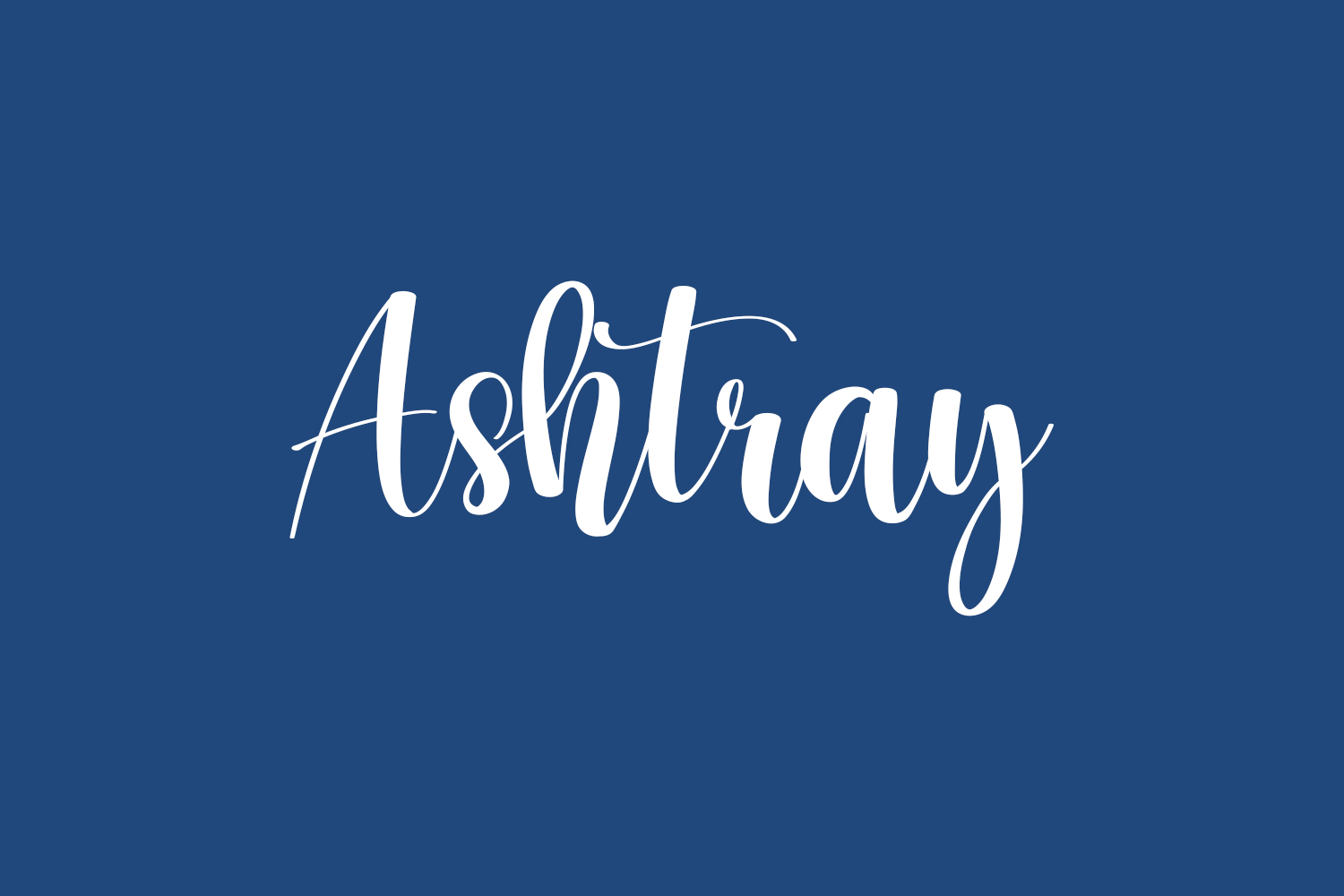
Ashtray Free Font exudes delicacy, elegance, and fluidity in its handwritten style. With beautifully balanced characters, this font complements a variety of designs effortlessly. Incorporate it into your creative projects and watch as it breathes life into them. Download the font for free if you need it for personal use or purchase the full version for commercial use.